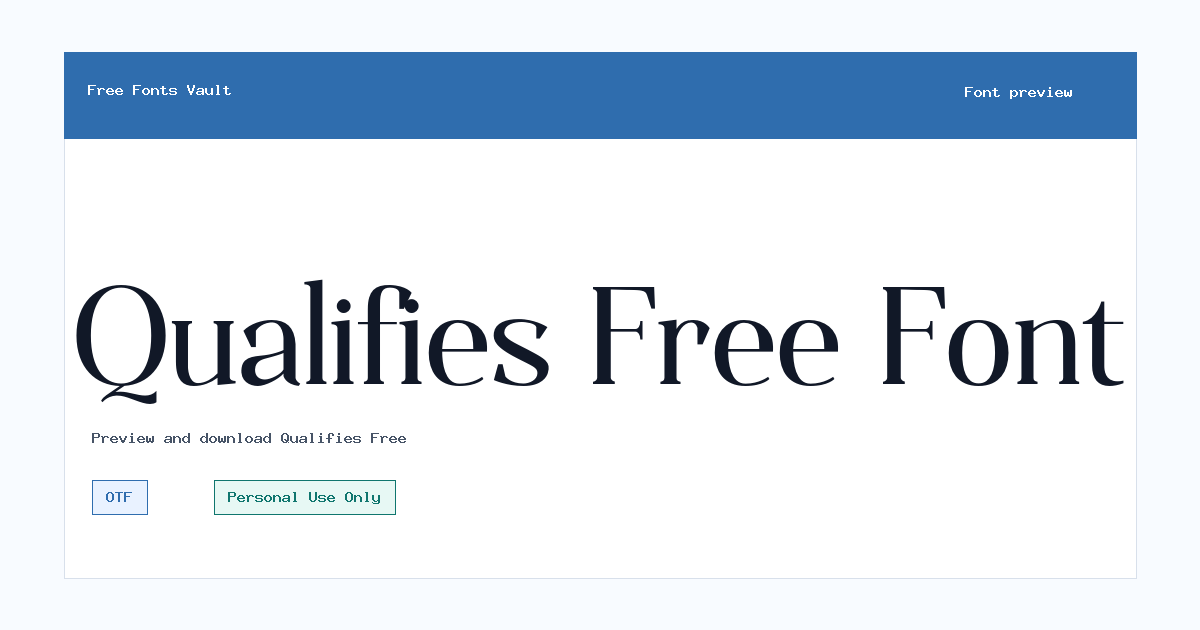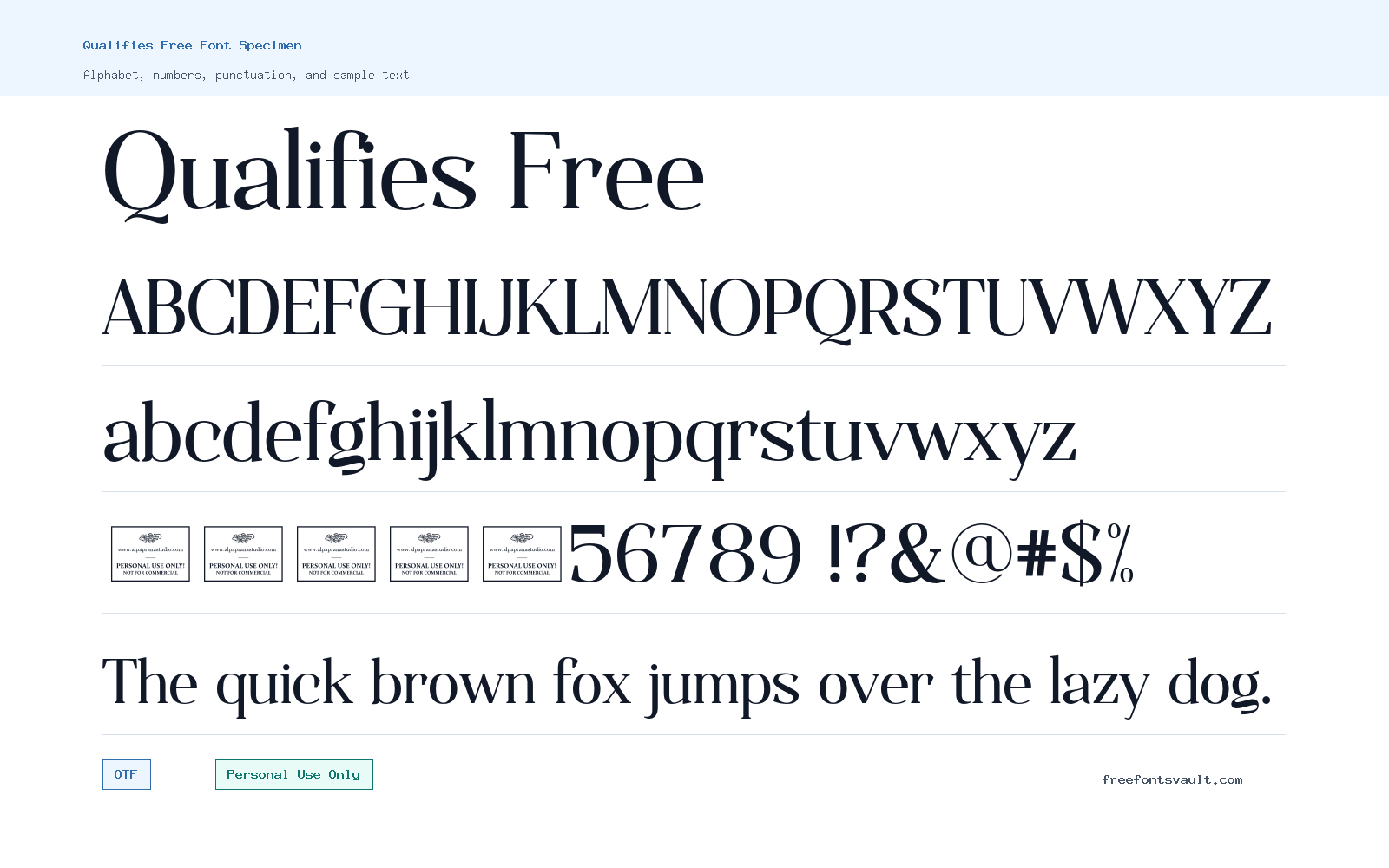
Qualifies Free
Qualifies Free is a serif font for personal design projects, with a regular OTF style that you can preview before downloading. It is best approached as a display-friendly typeface for testing titles, branding ideas, posters, and elegant short text rather than as a confirmed commercial-use font.
Qualifies Free is connected with Alpaprana Studio and is described through its license information as a serif font. With only a regular 400-weight OTF file listed, it should be treated as a single-style font rather than a large family with multiple weights or italics. That makes it especially useful when you need one clear visual voice for a heading, logo draft, invitation concept, social graphic, poster title, or web mockup. Because there are no extra weights shown, the font will work best when the design does not depend on bold, light, or italic variations.
When previewing Qualifies Free, test it with the exact words you plan to use. Serif display fonts can change character quickly depending on letter combinations, spacing, and size. Try a brand name, a short headline, uppercase and lowercase text, numbers, and punctuation before deciding whether it fits your layout. If you are designing a logo or identity concept, check how the first and last letters balance, whether the spacing feels even, and whether the font remains recognizable at small sizes. For posters and web mockups, use it as the main title font and pair it with a clean sans serif or a quiet text serif for body copy. Avoid forcing a single regular style to handle every part of a design; it will usually look better when used selectively.
• Serif classification based on the font license name, making it a practical choice to test for refined headings and display text.
• Single-style setup, useful for simple mockups where one consistent headline style is enough.
• Logo drafts and brand concept exploration where the final commercial license will be checked separately.
• Poster titles, invitation layouts, quote graphics, and social media mockups that need a serif display feel.
• Website hero text and landing-page concepts, especially when paired with a neutral body font.
• Personal design practice, moodboards, typography studies, and non-commercial previews.
Is Qualifies Free good for logos?
What should I pair with Qualifies Free?
Try pairing it with a clean sans serif for body text, navigation, and captions. Keep Qualifies Free for headings or short display text so the design stays readable.